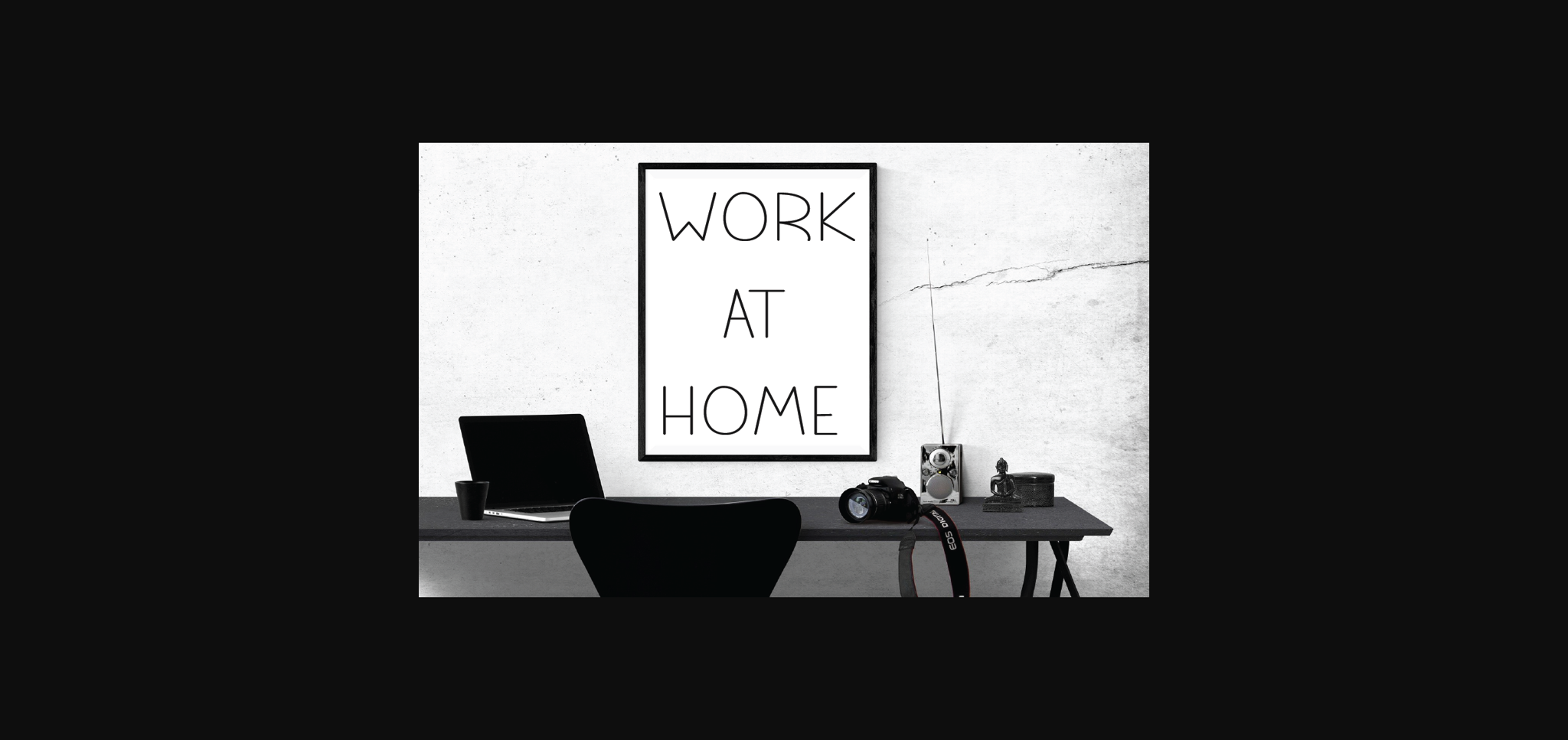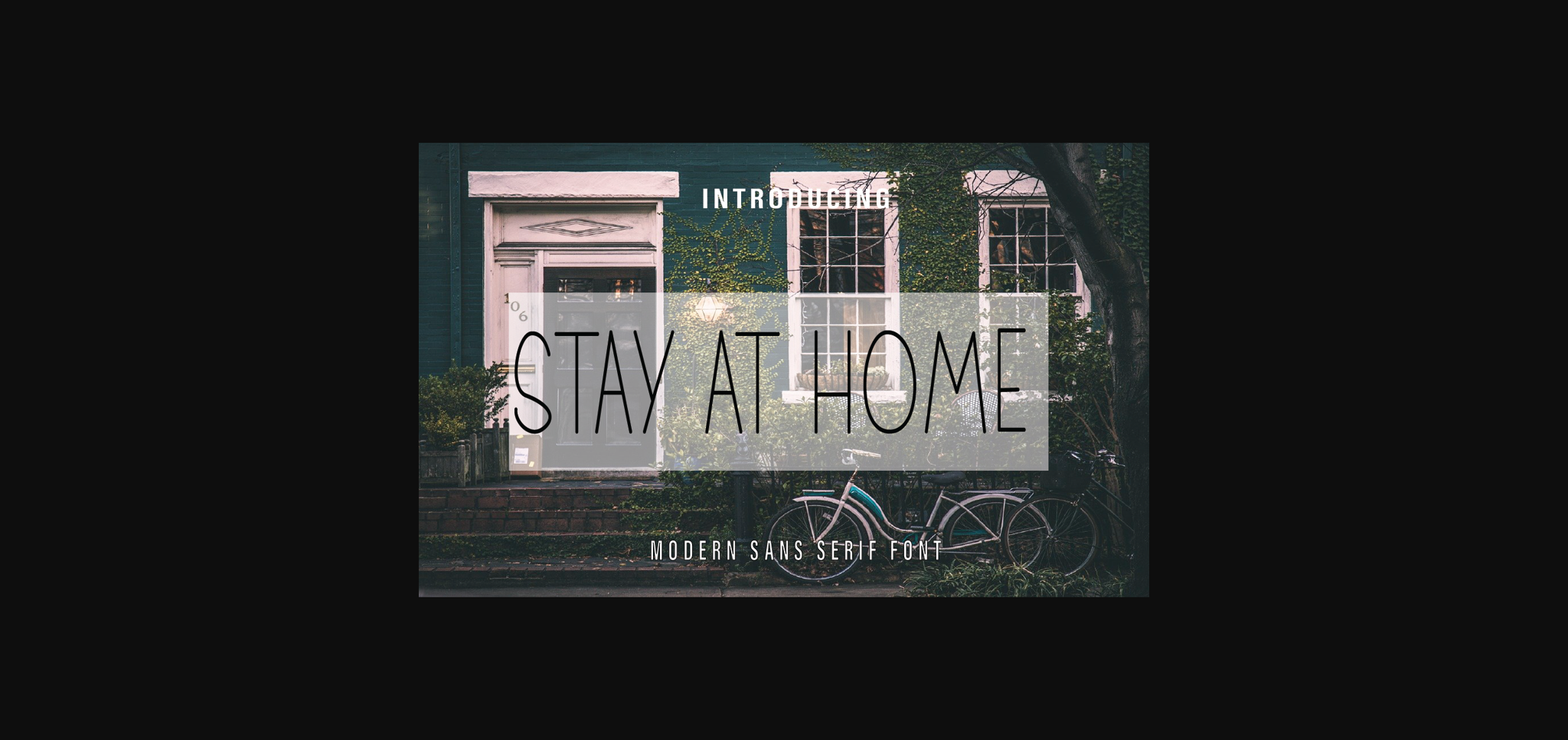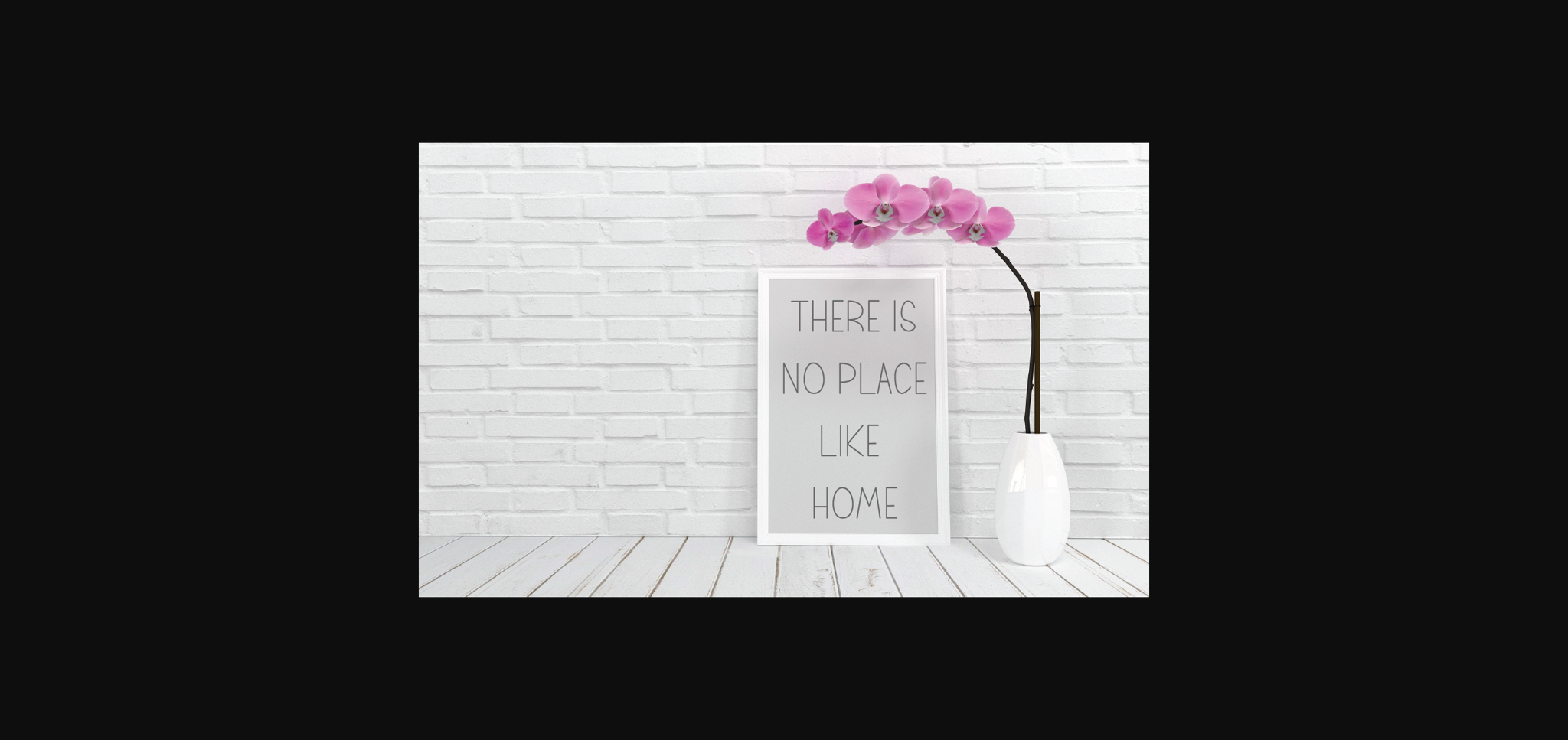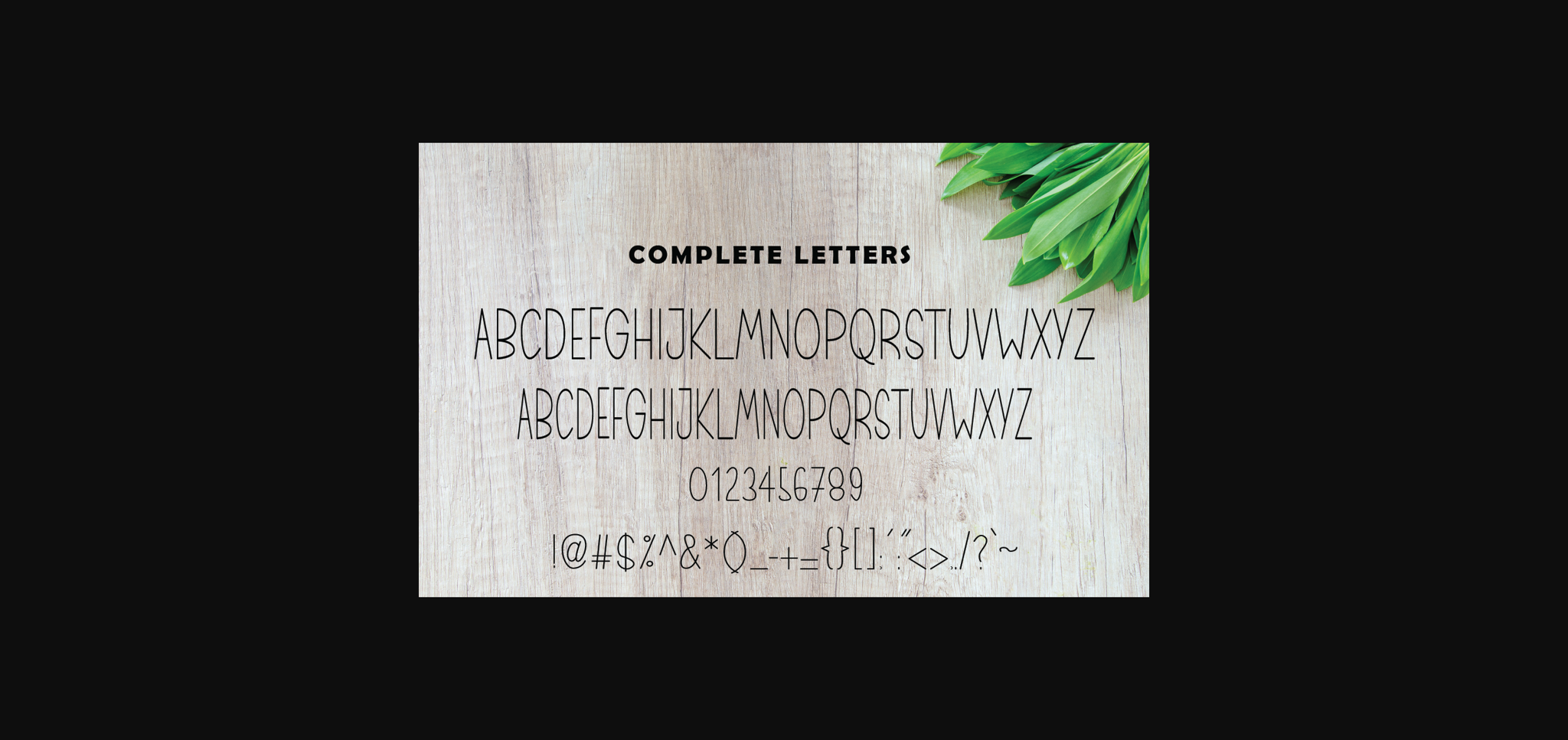
About Stay at Home Font
Stay at Home is a cute, thin and modern sans serif font. It can be matched to a large set of projects, so add it to your creative ideas and notice how it makes them stand out!